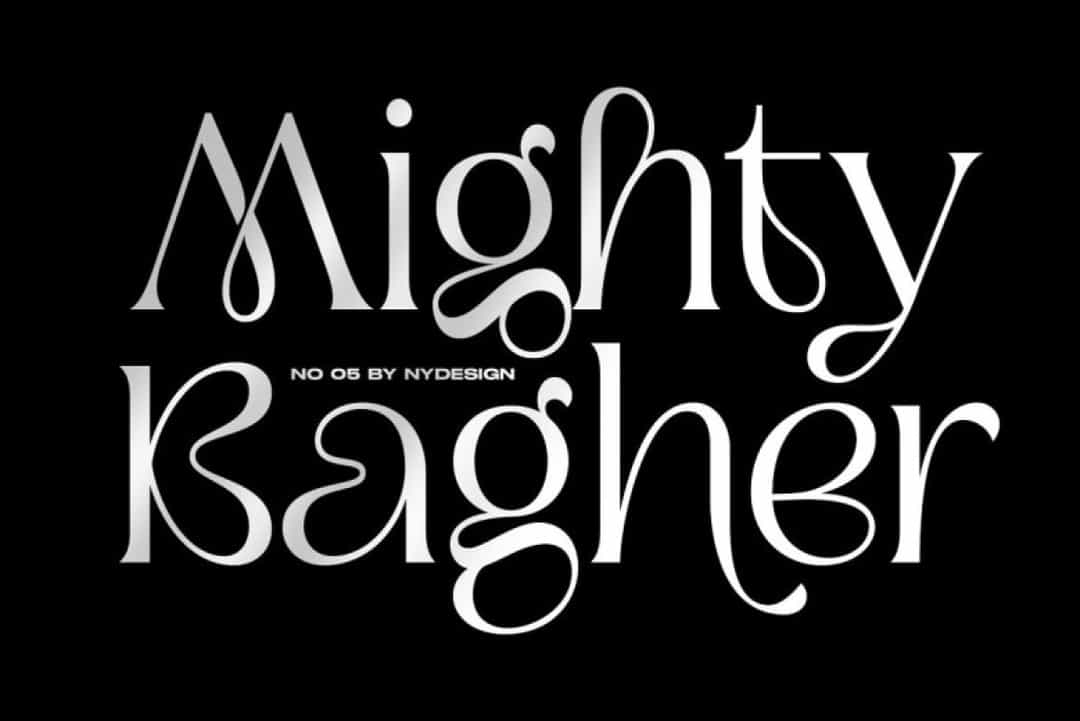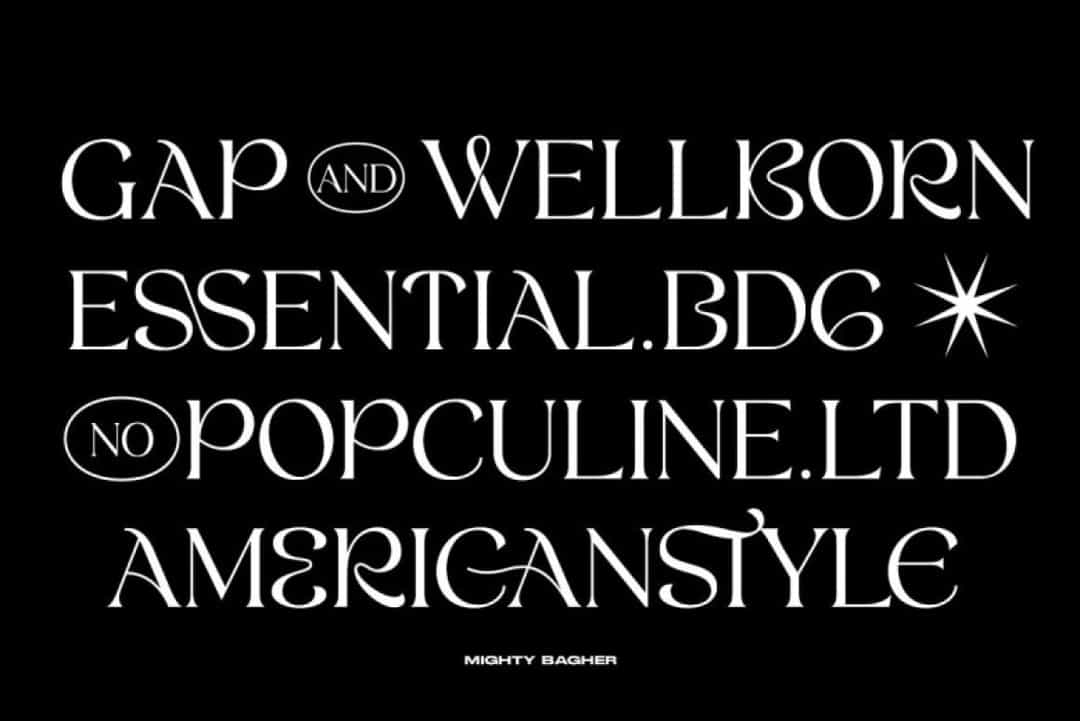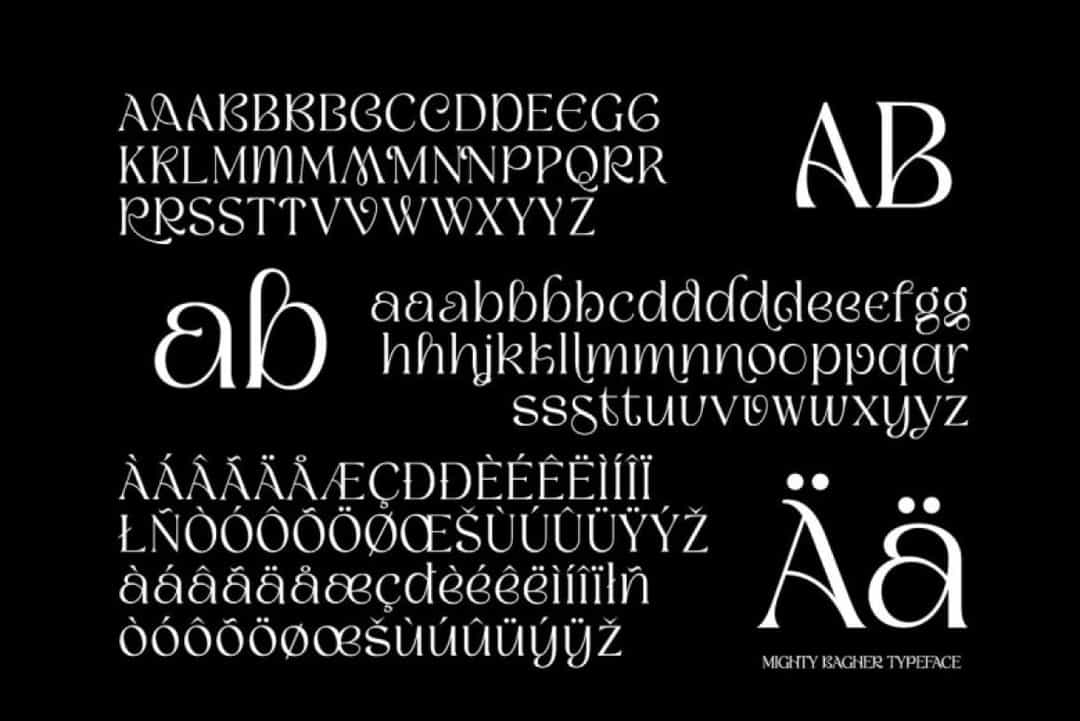
Mighty Bagher is an innovative serif typeface created with precise accuracy. Boasting multiple characters and ligatures that will add flair and distinction to your work, Mighty Bagher makes you stand out. Perfect for logo design, greeting card branding, packaging headlines or headlines and much more; use our fonts immediately to make your work more impressive!